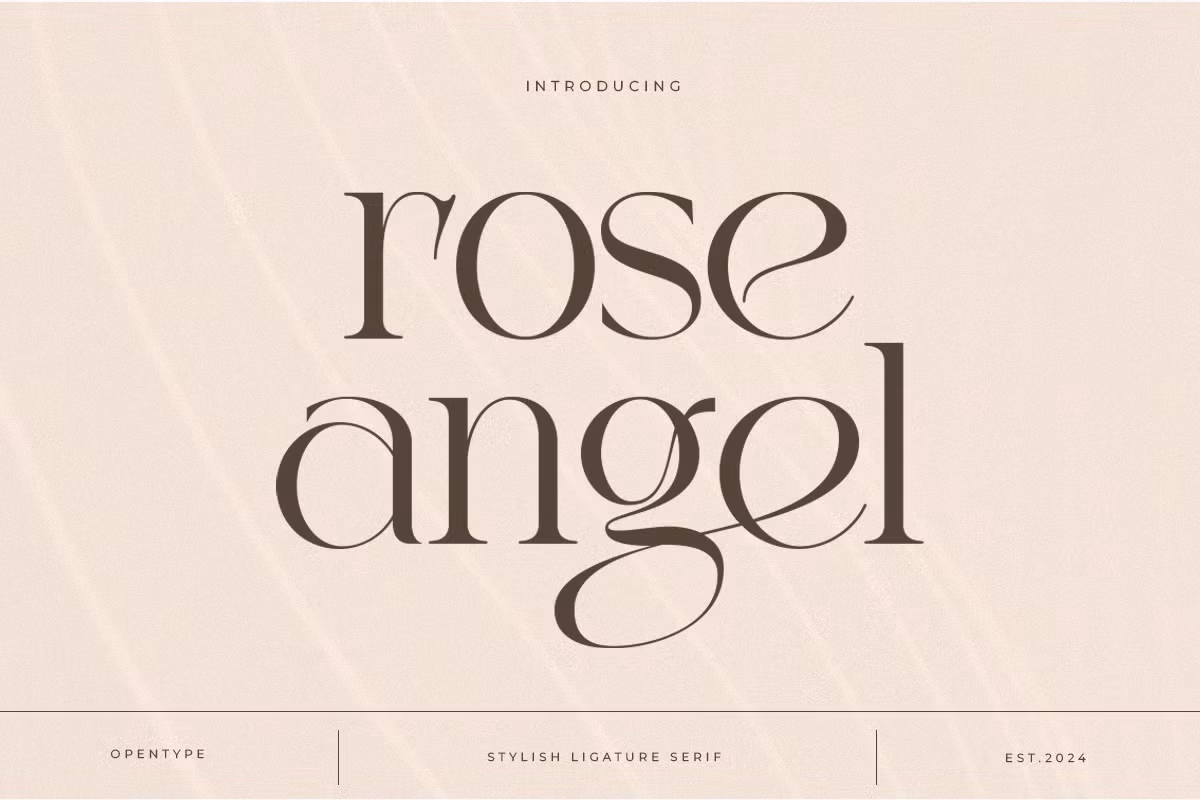
TBJ Rose Angel | Display Serif Font Free Download is an elegant and stylish display serif typeface designed to bring a touch of sophistication and charm to your designs. Featuring high contrast serifs, beautiful curves, and a distinctive design, TBJ Rose Angel is perfect for headlines, logos, branding, invitations, posters, and any project that requires a bold yet refined look.
Its artistic and graceful style makes it ideal for projects that want to convey luxury, femininity, or vintage elegance, adding a classic and timeless feel to your typography.